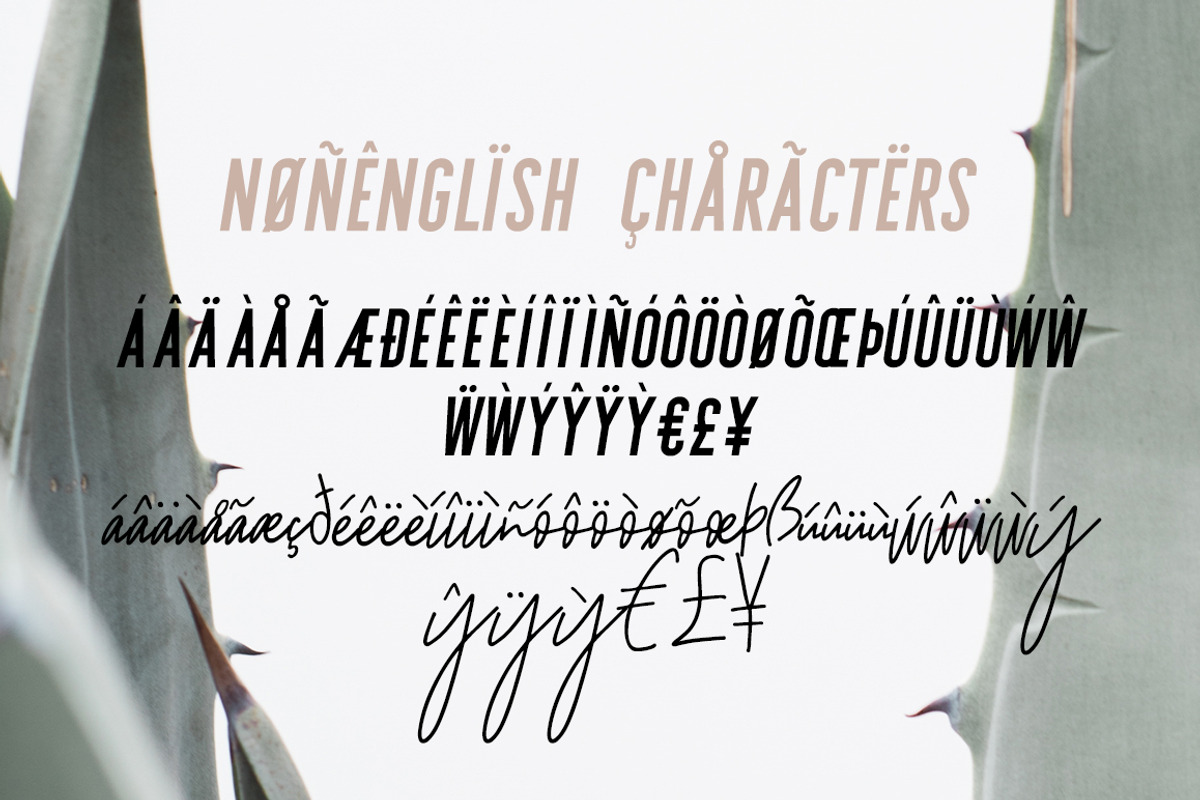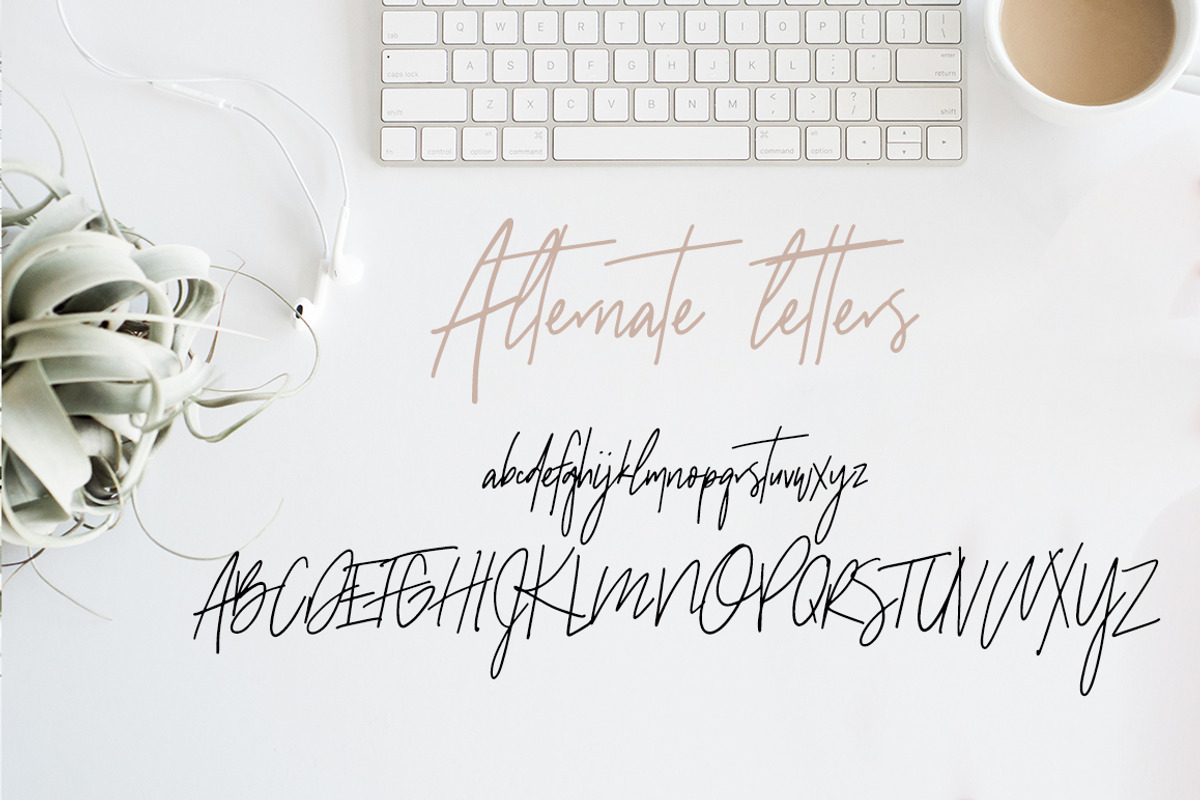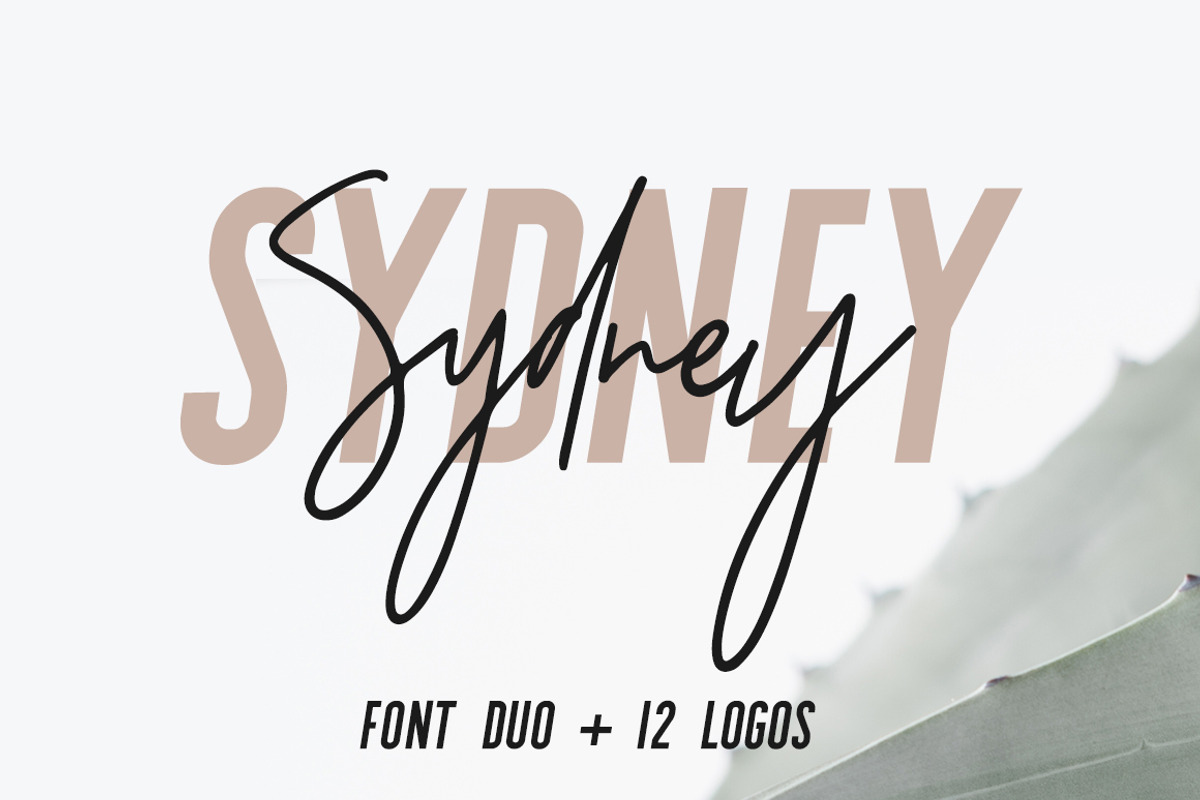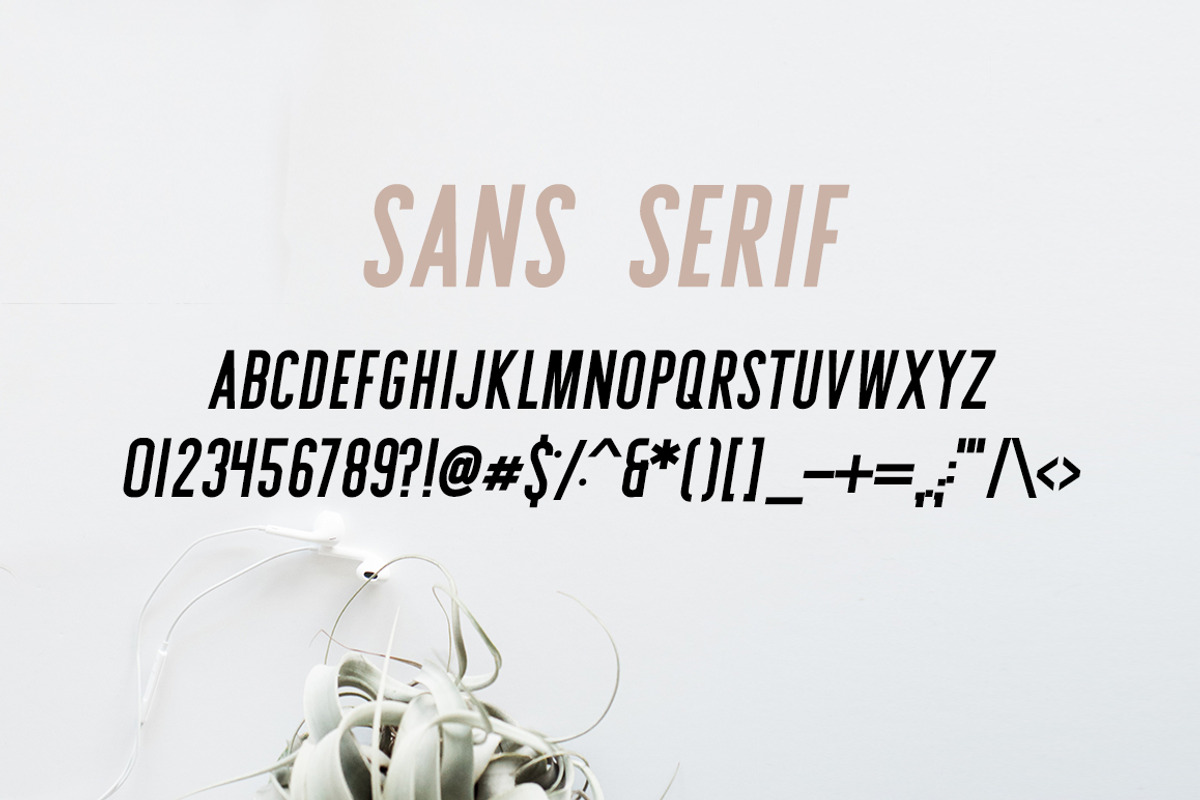
Sydney | Font Duo + 12 Free Logos
Sydney is a beautiful font duo that combines two trends (sleek sans serif caps and messy whimsical scripts) into one gorgeous package. You'll be seeing this combination a lot more in the design world over the next year – so here's a pack to help you be ahead of the curve!
Sydney is lovely at a glance -- for names or 1 word titles - I find it difficult for anything more than 1 word & definitely not for 2-3 word phrases. Several characters run/slant together (not well kerned), if pt sz is under 12, then reading proves very difficult. Many (older) customers ask for "easier to read" fonts, yet elegant & stylish. I was hoping for better with Sydney. Customer wanted it, so I got it - & altho they've not seen a final proof yet, bc I'm still working on it, I hope it's not a total waste -- Many fonts today are SO VERY much alike - as is this to (Adelaide) from CM. Adelaide is similar enough, & much easier to read that if the customer doesn't like Sydney, I will suggest Adelaide. Sad I might have to keep it b/c (no refunds w/CM), & besides, I am still waiting to hear feedback from my customer. I did NOT share my opinion with them, allowing a few visual word samples to speak for themselves.